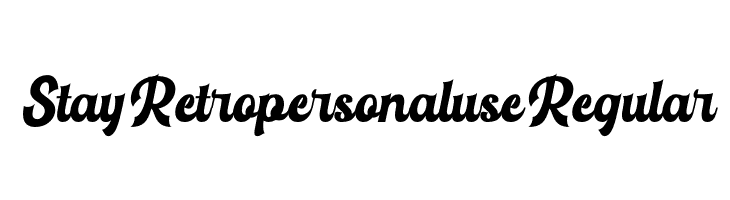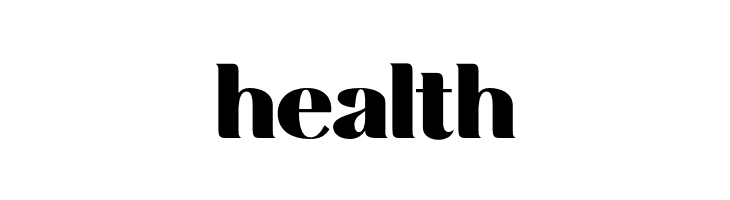
A bold, retro script font with dynamic curves and a vintage flair.
A modern serif font with a light weight and elegant, readable design.
A bold, distressed italic font with a rugged, textured appearance.
A bold, modern sans-serif font with clean lines and a strong presence.
A cursive, handwritten-style font with elegant, flowing strokes.
A bold slab serif font with strong, block-like serifs and a robust presence.
A lively handwritten font with fluid strokes and a playful, stylish appearance.
A bold, high-contrast serif font with a modern yet classic style.